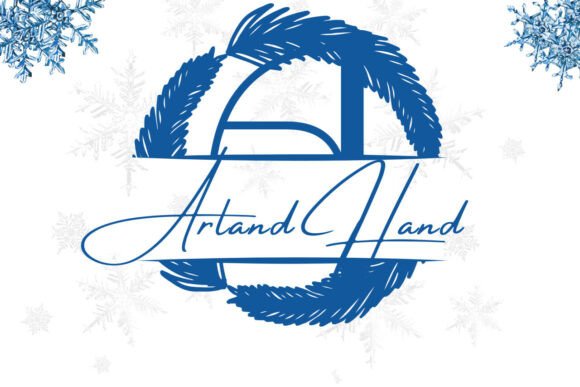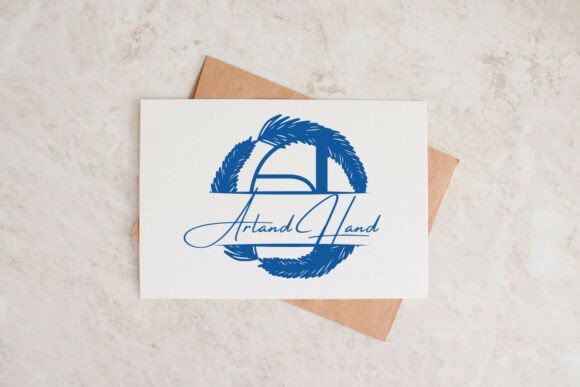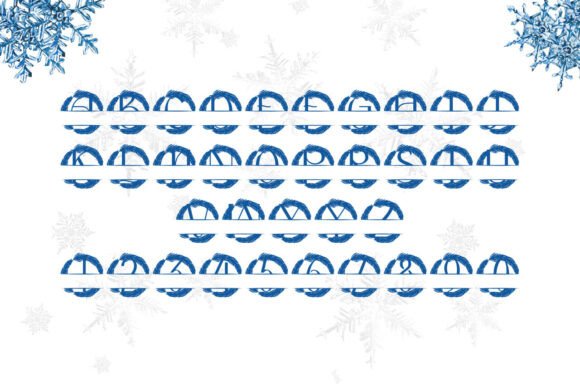
Transforming Letters into Emblems: The Power of Brixton Split Monogram Font
Have you ever stared at a blank canvas, eager to create something special for a loved one, only to be stuck on the perfect design? We’ve all been there. But what if you could turn any initial into a stunning, name-ready emblem in seconds? Enter Brixton Split Monogram Font, a game-changing tool that’s about to revolutionize the way you approach personalization.
Brixton Split Monogram Font is more than just a font – it’s a design solution that brings clarity and sophistication to any project. Whether you’re a seasoned designer or a crafting enthusiast, this versatile font is sure to become your go-to for creating unique and polished designs. From wedding keepsakes to boutique packaging, the possibilities are endless, and the results are always premium.
Brixton Split Monogram Font Key Features
- Unique Characteristics: Distinctive split monogram design, perfect for creative and modern branding
- Font Style: Sans-serif, modern, and clean design
Brixton Split Monogram Font Review
I recently had the chance to work with the Brixton Split Monogram Font, and I must say it’s a unique and intriguing choice. ✨ Here are some of the things I think work well:
- Unconventional design: The Brixton Split Monogram Font offers a fresh take on traditional monogram fonts, with its split letters and asymmetrical design.
- High-quality rendering: The font renders beautifully in various sizes and resolutions, making it suitable for a wide range of applications.
- Unique styling options: The font’s split design allows for creative styling options, such as overlaying or combining different letters to create a custom look.
- Limited legibility: At smaller sizes, the font’s split design can make it difficult to read, especially for those with visual impairments.
- Context-dependent: The font’s effectiveness relies heavily on the context in which it’s used, and may not be suitable for all types of projects.
Overall, I think the Brixton Split Monogram Font is a great choice for designers looking to add some personality to their projects. While it may not be suitable for every project, it’s definitely worth considering for the right application. Just be mindful of its limitations and potential compatibility issues.
The Brixton Split Monogram Font is ideal for:
- Creating unique logos and branding materials.
- Adding a touch of sophistication to invitations and event materials.
- Designing custom merchandise and packaging.
For the best results, use the Brixton Split Monogram Font in combination with bold colors and striking graphics.
The Brixton Split Monogram Font is a unique, hand-drawn monogram font that adds a touch of elegance to designs. However, there may be situations where designers want to explore other options. Here are a few alternatives to consider.
Yes, the Brixton Split Monogram Font can be customized to fit your brand’s colors. The font is designed to be highly customizable, allowing you to change the color of the font, the background, and even the split lines to match your brand’s identity.